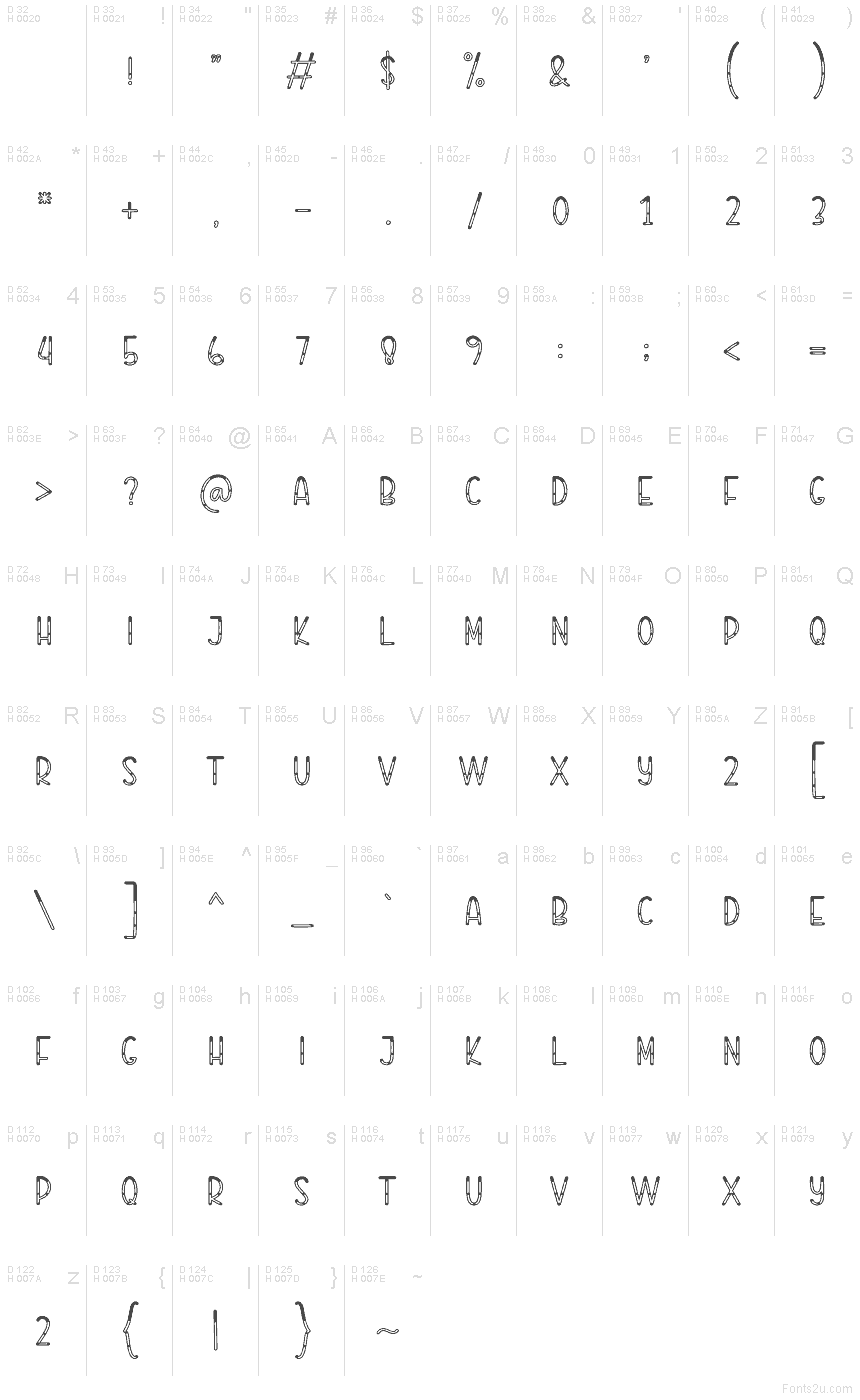
Comitmen
Comitmen font by Andi Moz is a free condensed display font. Built around tubular strokes with crisp, intentional breaks, it looks like a network of bent neon or polished conduit—sleek, industrial, and a little playful. The tall, narrow forms and rounded corners create an easy rhythm, while the inner gaps add sparkle and airflow so headlines read bold without feeling heavy.
Using Comitmen, you’ll get striking posters, event flyers, urban branding, album art, packaging, and signage that feel engineered yet approachable. This free font shines at large sizes where its inky outlines and cutaways can breathe. Pair it with a plain, low-contrast sans for body copy, and keep tracking slightly tight to emphasize its compact, pipe-like cadence.